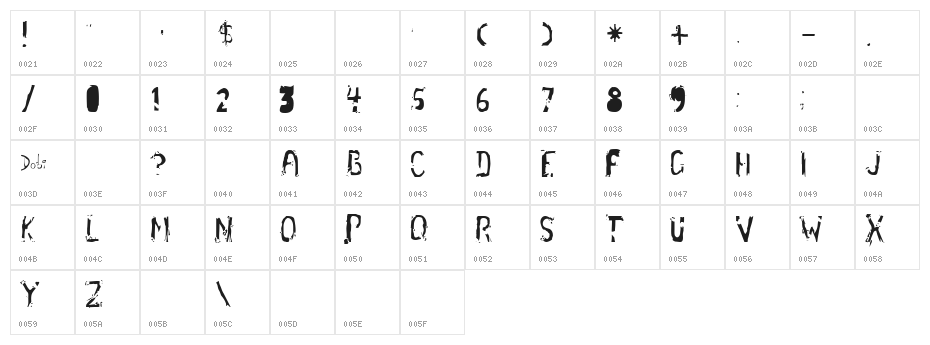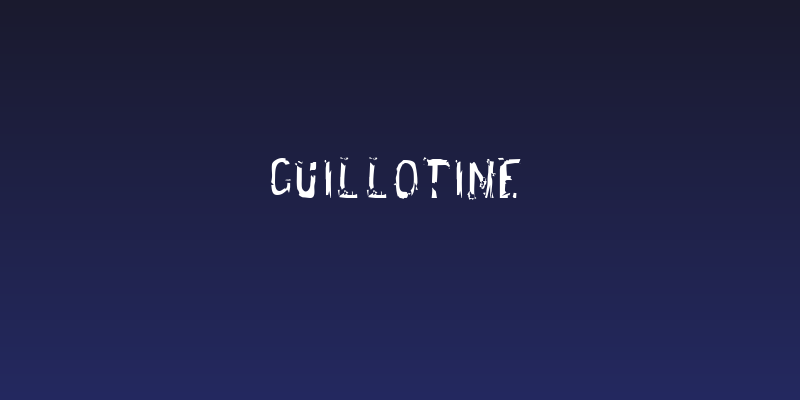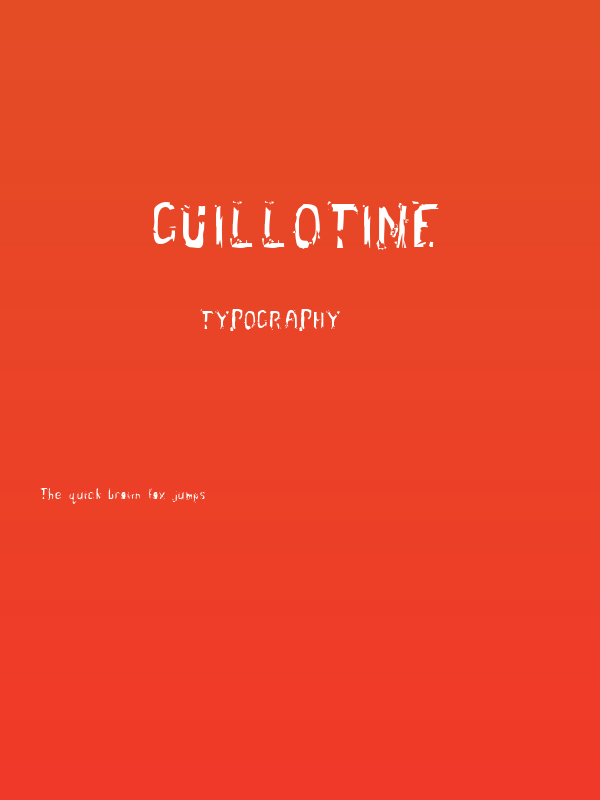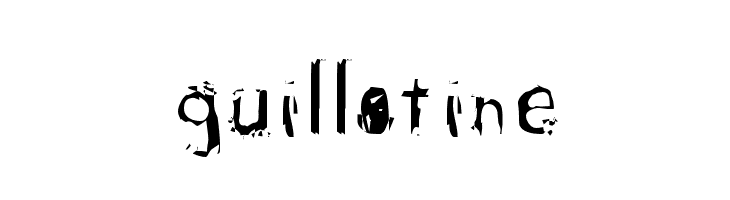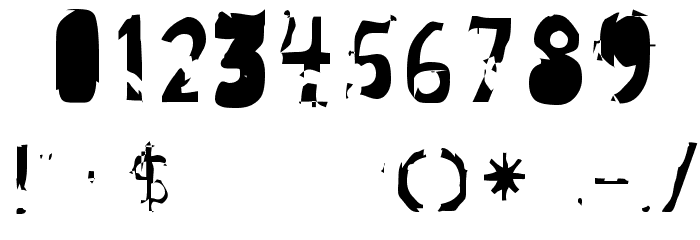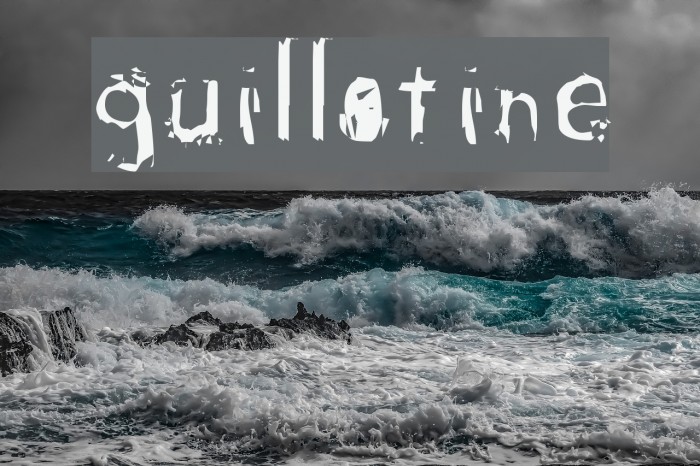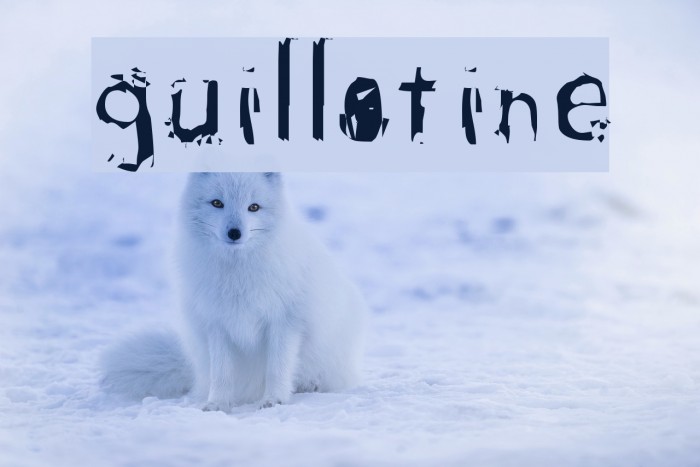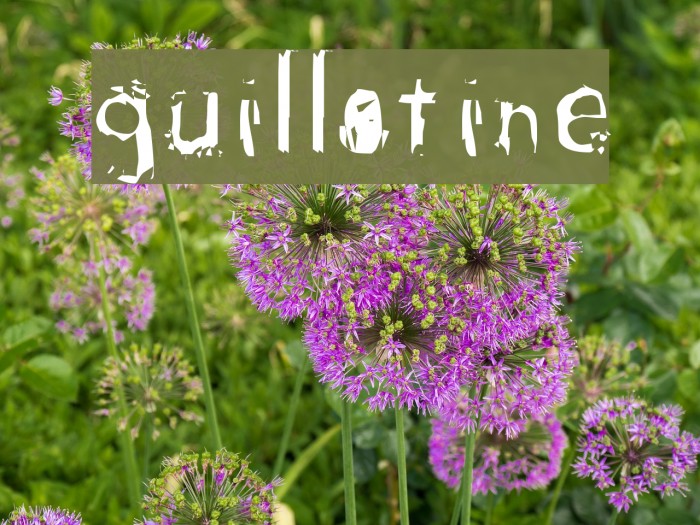
guillotine Font
guillotine Description
This font features a distressed and grungy aesthetic, with irregular edges and a worn-out appearance that gives it a unique, edgy look. The characters are bold and have a rough texture, making them stand out with a rebellious flair. The uppercase and lowercase letters maintain a consistent style, with each character exhibiting a slightly different degree of distress, adding to the overall chaotic and artistic feel. The numbers and special characters follow the same design principle, ensuring a cohesive look across all elements. This font is ideal for projects that require a bold statement or an artistic touch, such as posters, album covers, or any design that aims to capture attention with its unconventional style.
| Overall Style | Grunge, Edgy, Artistic |
| Use Case | Headlines, Logos, Artistic projects |
| Proposed Projects | Ideal for posters, album covers, and artistic designs that require a bold, edgy statement. |